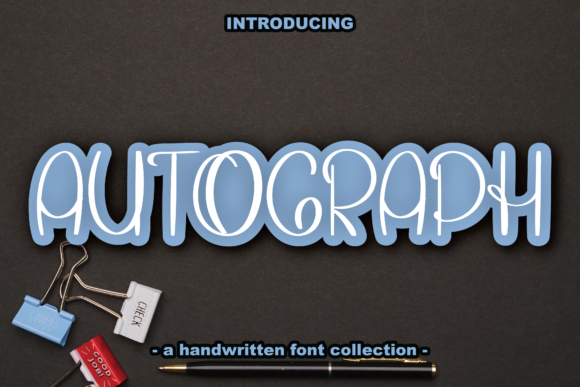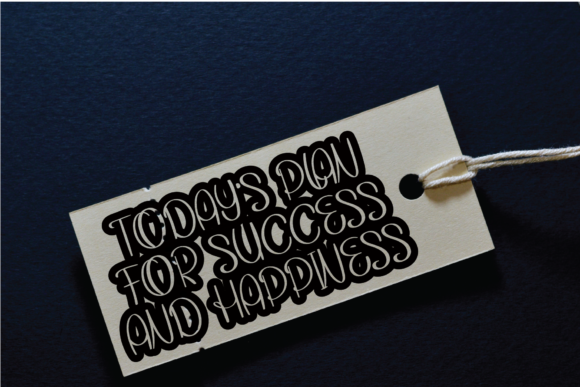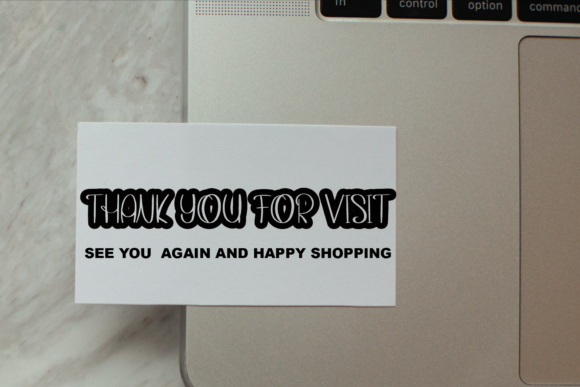
Autograph Font
About Autograph Font
Autograph is a thin lettered and sweet handwritten font. Its stylish alternates and ligatures make this font the perfect match for any project.